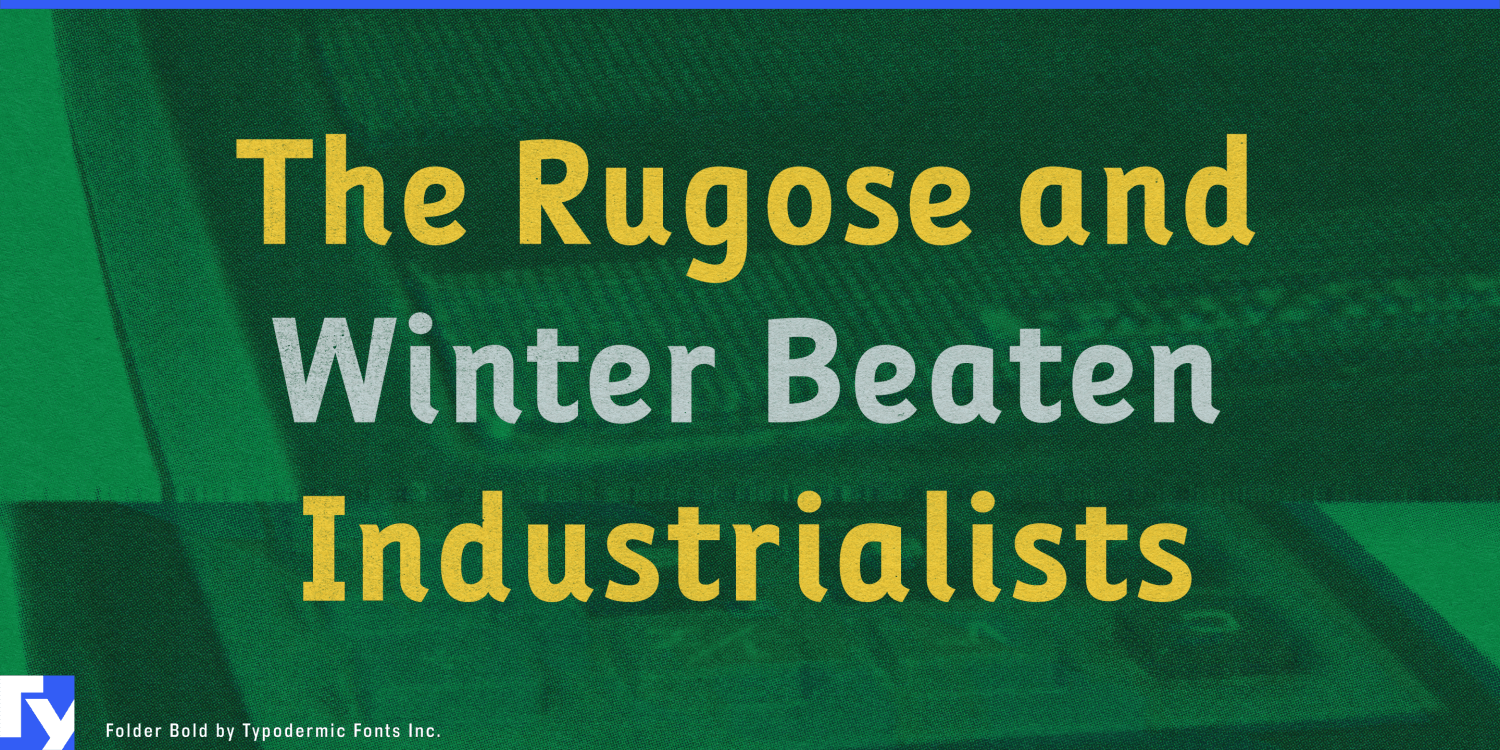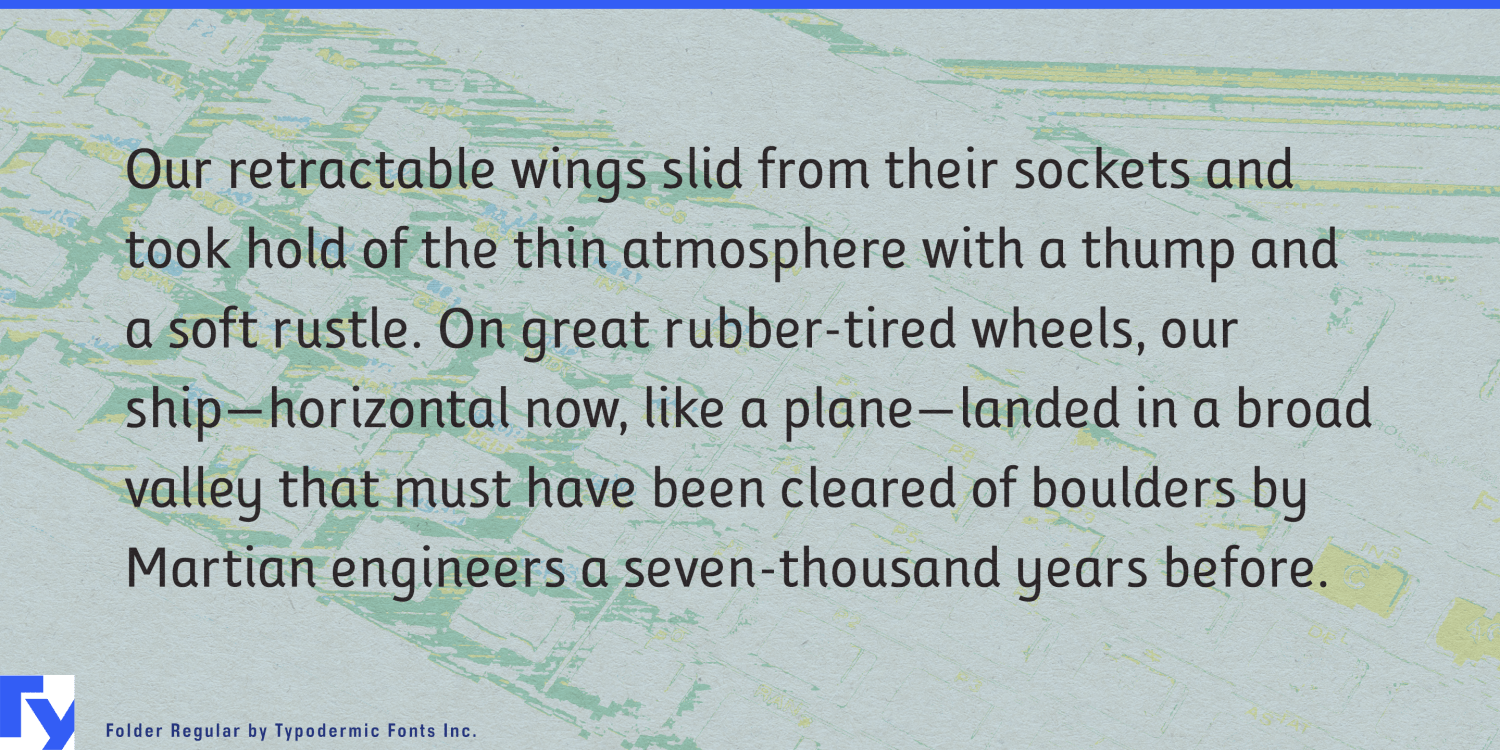
About Folder
Introducing Folder—the technical sans-serif typeface that elevates boredom to an art form. This font is so mundane, it’s revolutionary. Designed with an unwavering commitment to legibility, Folder is the epitome of typographic monotony, perfect…